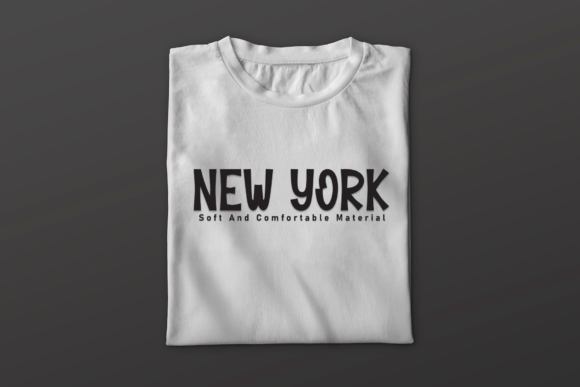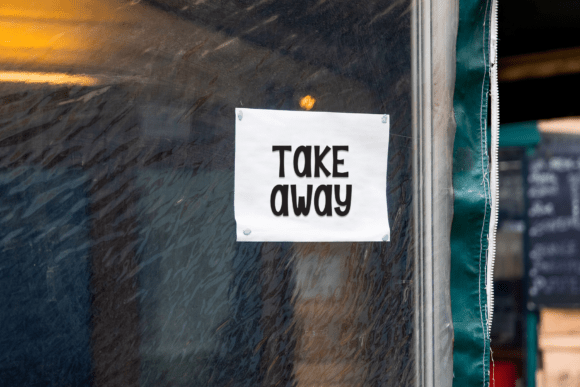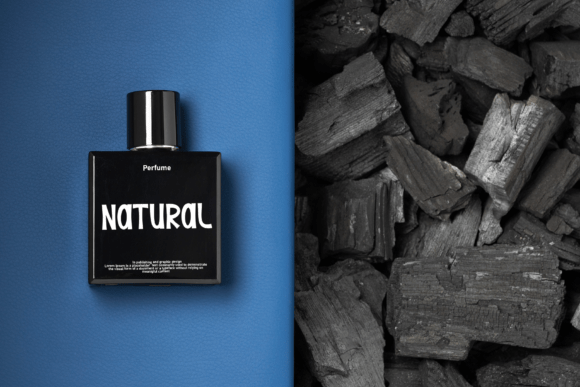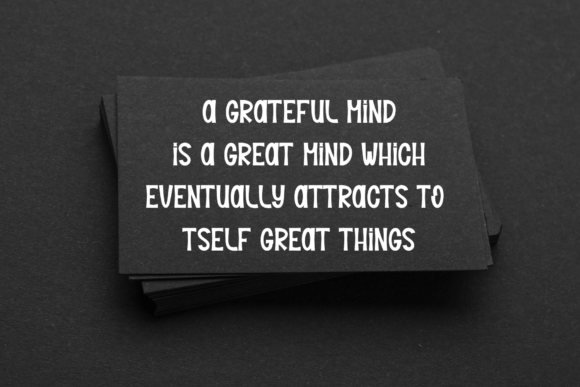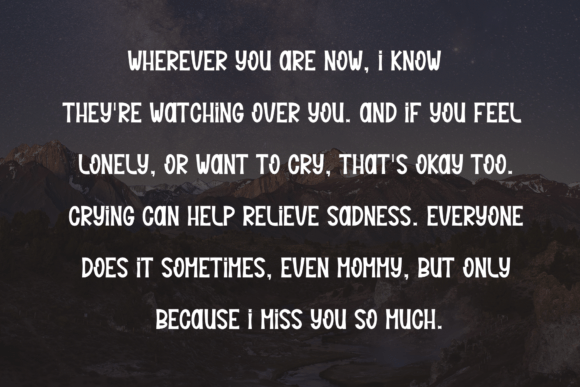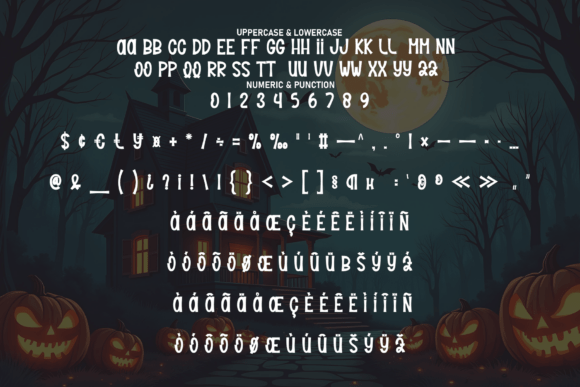
Introducing the Haunted Halloween Font: A Whimsical Addition to Your Designs
Are you looking for a font that adds a touch of playfulness and charm to your designs? Look no further than the Haunted Halloween Font, a unique handwritten display font that embodies friendliness and whimsy. This delightful piece of typography is perfect for adding a fun element to your wedding invitations, cards, or any design that needs an injection of playful charm.
A Font that Casts a Spell of Delight
The Haunted Halloween Font is a one-of-a-kind typeface that is sure to cast a spell of delight on your audience. Its adorable and fun characteristics make it an ideal choice for designers and crafters who want to create designs that are both visually appealing and engaging. Whether you’re designing a wedding invitation, a greeting card, or a flyer, this font is sure to elevate your design and create a pleasing aesthetic experience for your audience.
The Haunted Halloween Font is a versatile typeface that can be used for a variety of design projects. Here are some ideas to get you started:
- Wedding invitations: Add a touch of whimsy and romance to your wedding invitations with this delightful font.
- Greeting cards: Create fun and playful greeting cards for birthdays, holidays, and other special occasions.
- Flyers and brochures: Use the Haunted Halloween Font to add a playful touch to your marketing materials.
- Social media graphics: Create eye-catching social media graphics that are sure to grab the attention of your followers.
- Craft projects: Use this font to add a personal touch to your craft projects, such as scrapbooking, DIY signs, and more.
What Makes the Haunted Halloween Font So Special?
So, what makes the Haunted Halloween Font so special? Here are just a few reasons why designers and crafters love this font:
- Unique and handmade: This font is a one-of-a-kind, handmade typeface that is sure to stand out from the crowd.
- Playful and whimsical: The Haunted Halloween Font has a playful and whimsical feel that’s perfect for adding a touch of fun to your designs.
- Easy to read: Despite its playful nature, this font is easy to read and understand, making it perfect for use in a variety of design projects.
- Versatile: This font can be used for a wide range of design projects, from wedding invitations to social media graphics.
Tips for Using the Haunted Halloween Font
Here are a few tips for using the Haunted Halloween Font in your designs:
- Use it sparingly: While this font is playful and fun, it can be overwhelming if used too much. Use it sparingly to add a touch of whimsy to your designs.
- Pair it with other fonts: The Haunted Halloween Font pairs well with other fonts, such as serif and sans-serif fonts. Experiment with different font combinations to find the perfect look for your design.
- Experiment with colors: This font looks great in a variety of colors, from bright and bold to pastel and soft. Experiment with different colors to find the perfect look for your design.
The Haunted Halloween Font is a unique and whimsical typeface that’s perfect for adding a touch of playfulness and charm to your designs. With its adorable and fun characteristics, this font is sure to elevate your designs and create a pleasing aesthetic experience for your audience. Whether you’re a designer or crafter, this font is a must-have for any design project. So why wait? Download the Haunted Halloween Font today and start creating designs that are both visually appealing and engaging!